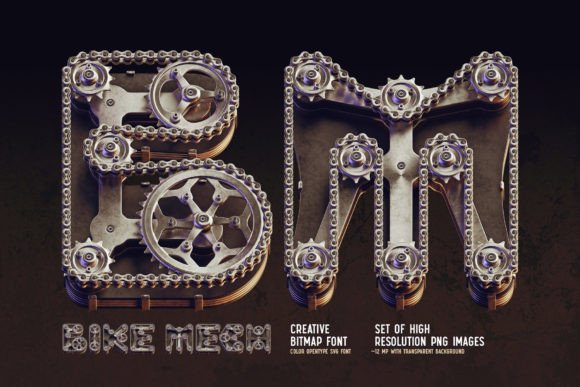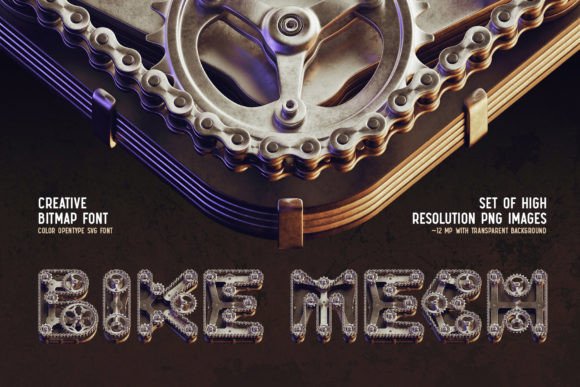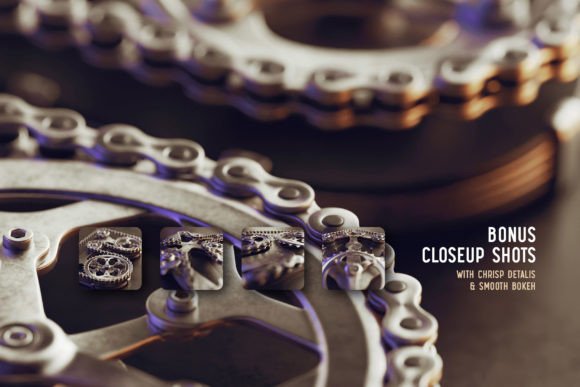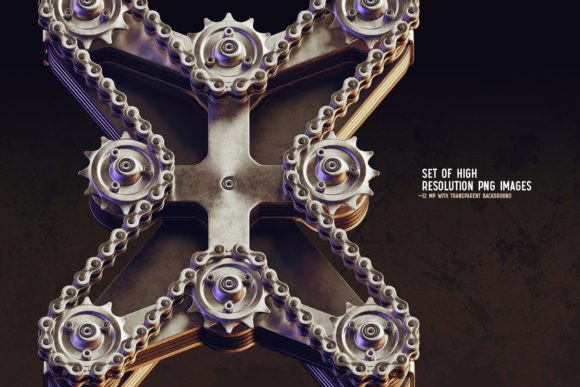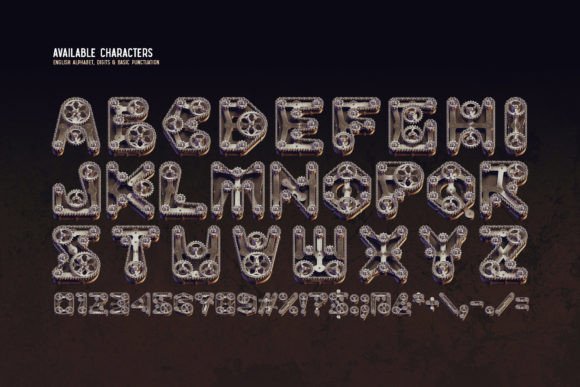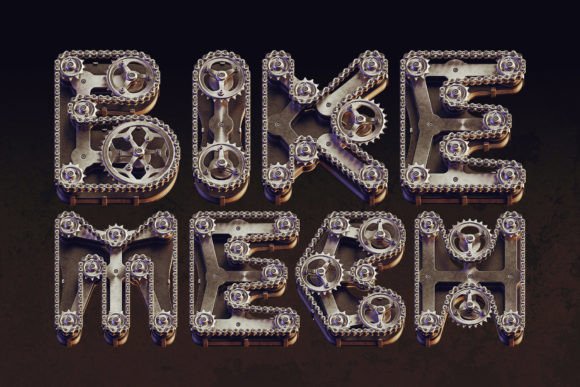
Bike Mech Font
Hello! Presenting a steampunk-style font set – Bike Mech. It’s a 3d rendered high-quality typeface made of bike gears and chains. First of all it’s a color bitmap OpenType-SVG font that can be used as a usual OTF font. Also, a set of full-resolution PNG files with transparent backgrounds is included (The average resolution is 12 megapixels). Considering that only English language and basic punctuation are supported, please check out the screenshot with all available characters.